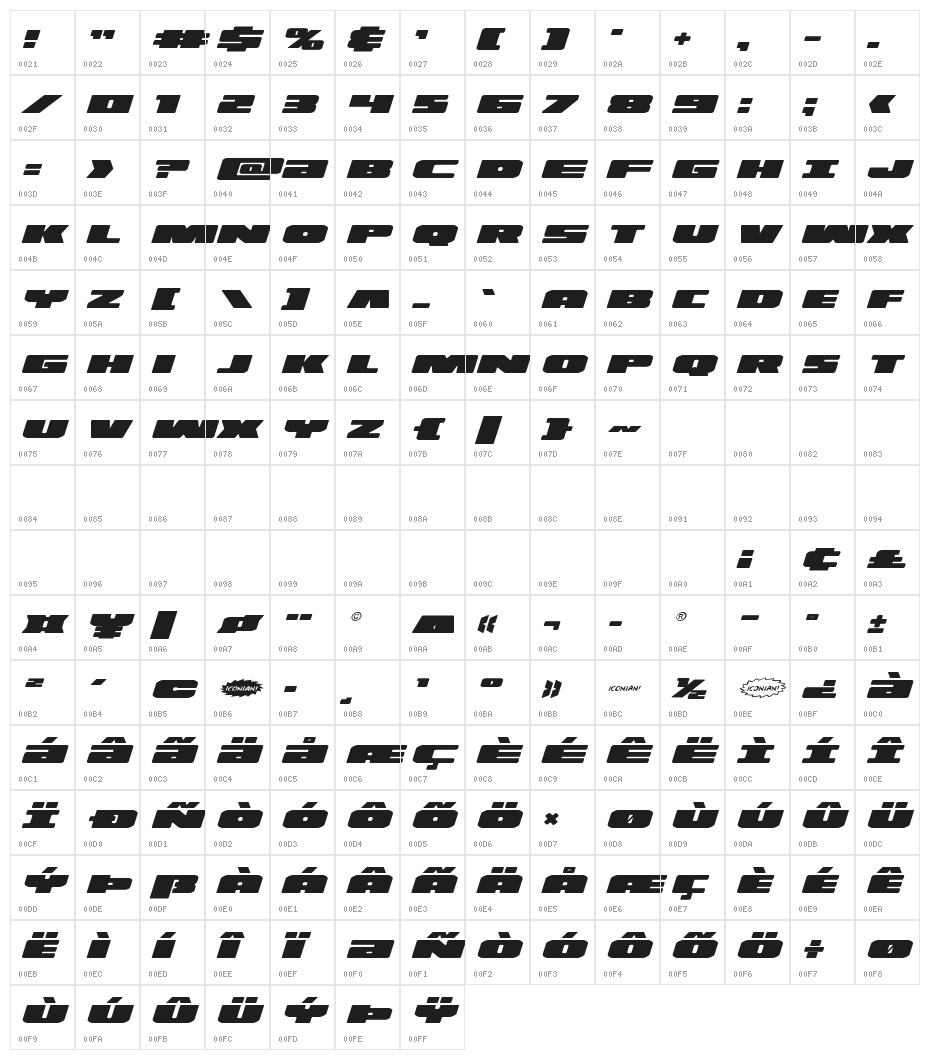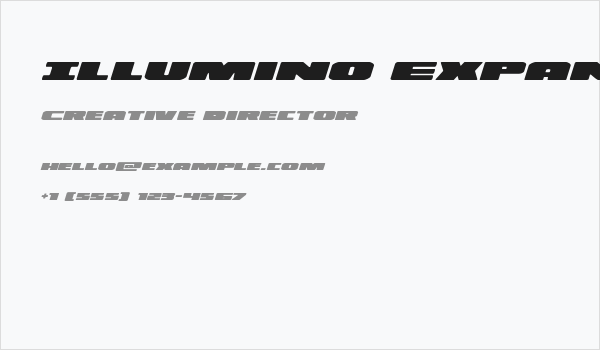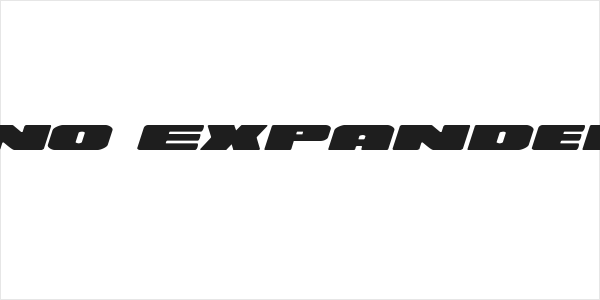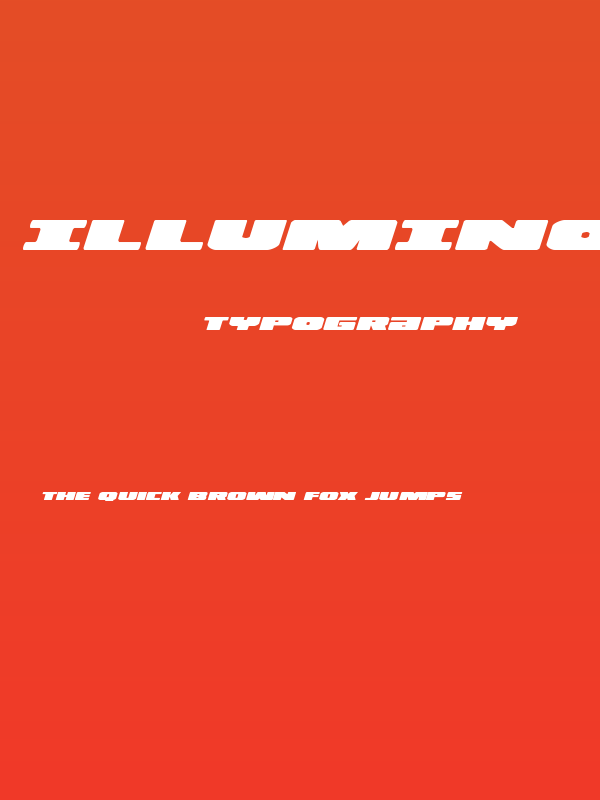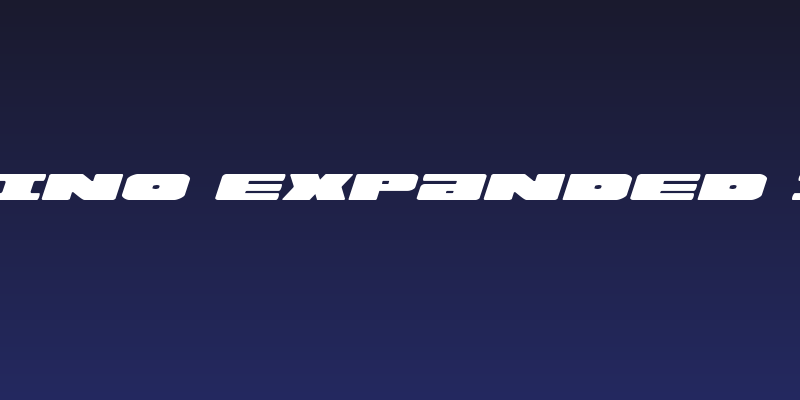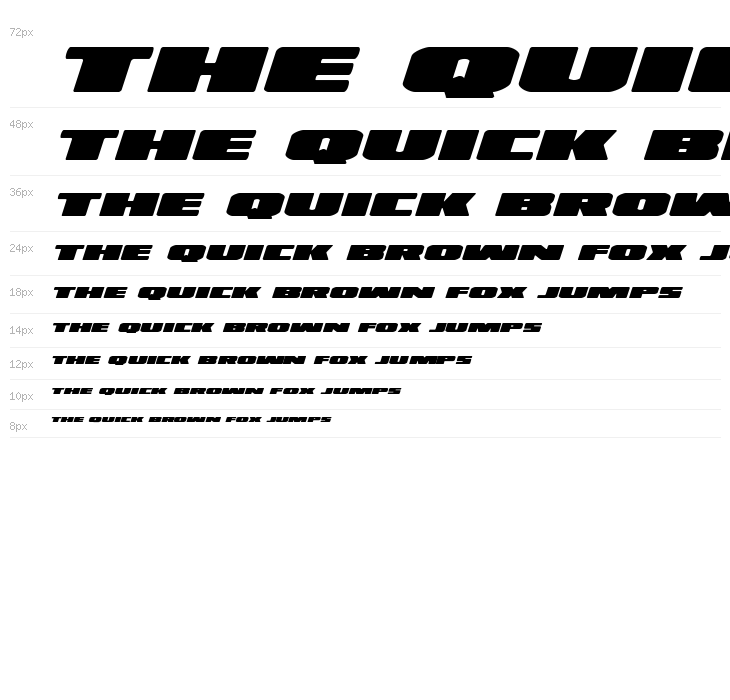
Illumino Expanded Italic Font
Illumino Expanded Italic Description
This font features a bold and dynamic design with a distinctly modern flair. The characters are expanded and italicized, giving them a sense of motion and energy. The strokes are thick and consistent, providing a strong visual impact. The uppercase and lowercase letters maintain a uniform width, contributing to a cohesive appearance. The numbers and special characters are designed to match the bold style, ensuring a harmonious look across all text elements. This font is ideal for projects that require a strong, attention-grabbing typeface.